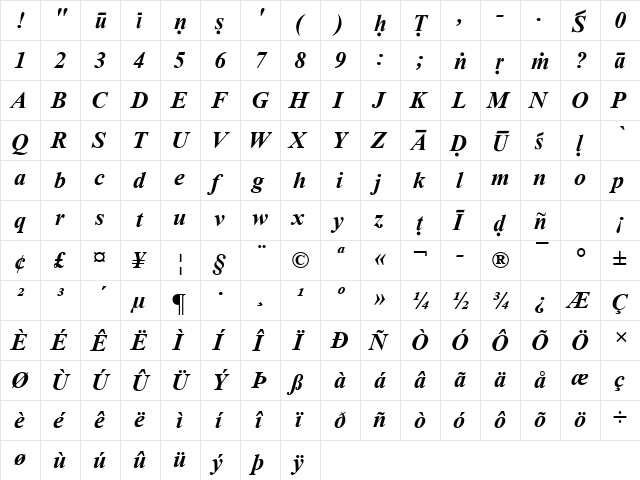
Sanskrit Roman Bold Italic
Sanskrit Roman takes a measured approach to typography — its balanced proportions and neutral character make it a reliable workhorse for both digital and print work. The slanted form adds forward momentum and visual energy. Its bold stroke weight gives it real presence on the page.
Pro Tip: Try Sanskrit Roman for annotation and caption copy alongside an upright companion — the contrast in angle creates a dynamic but ordered typographic system.